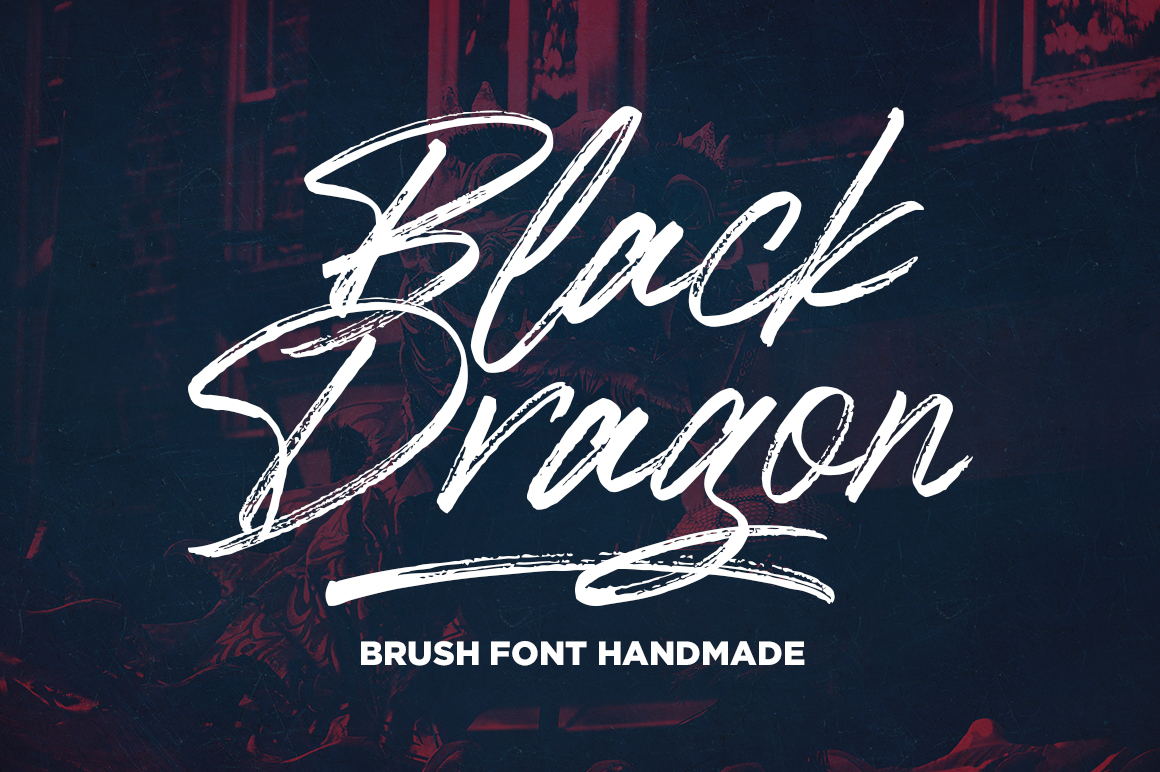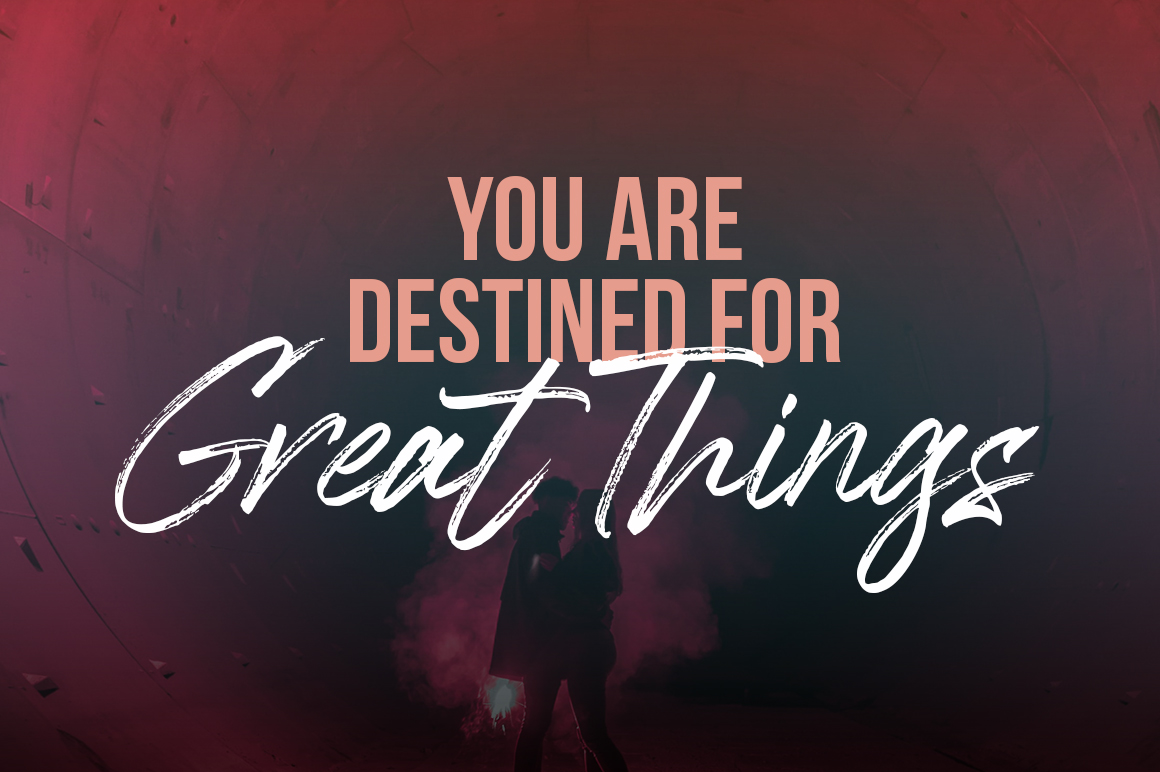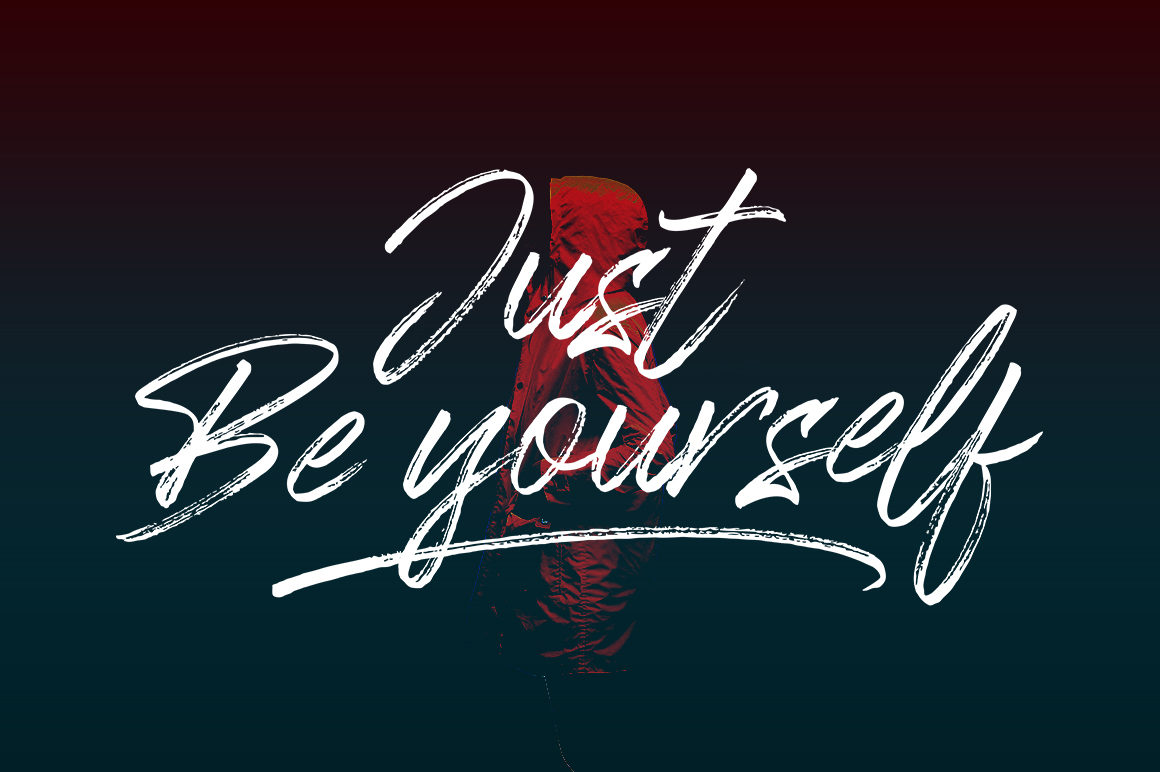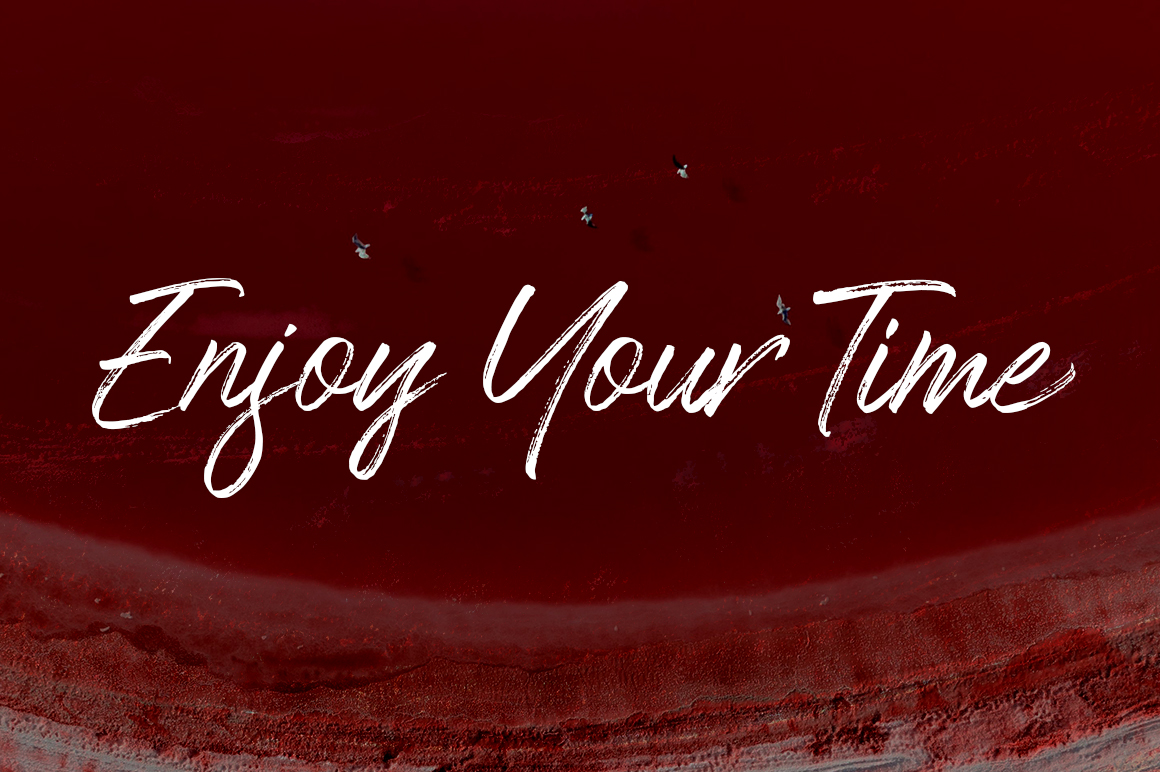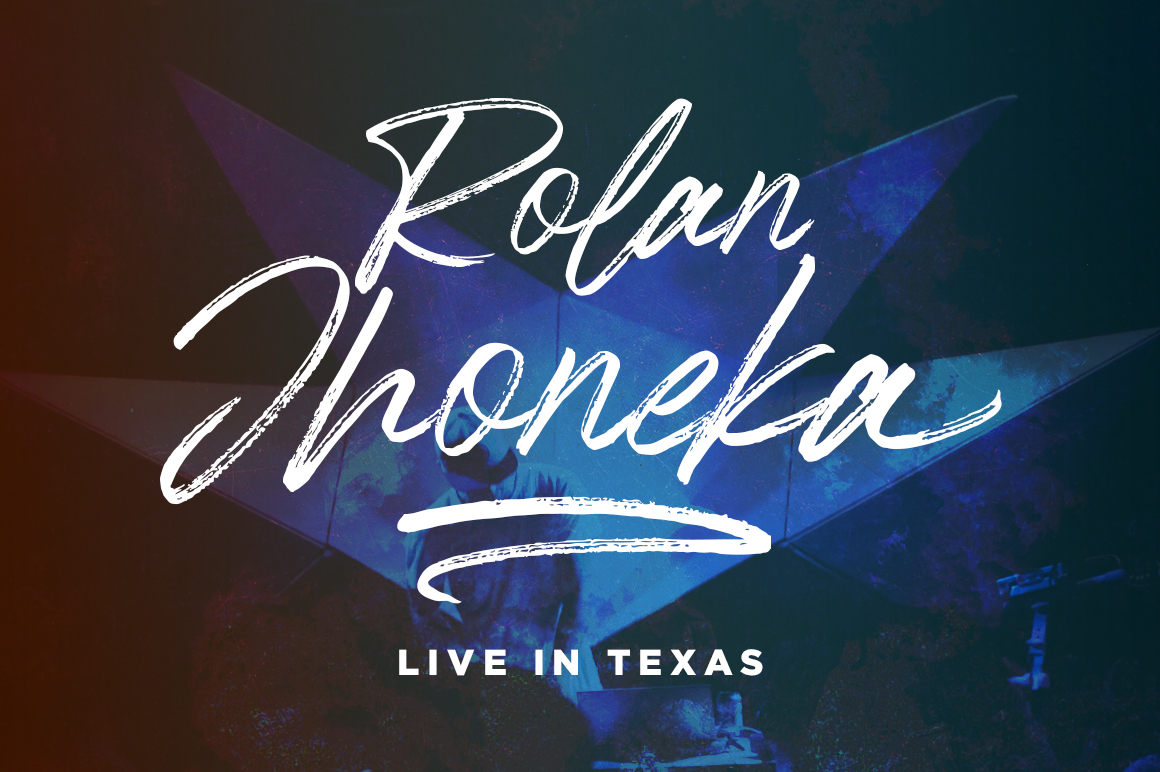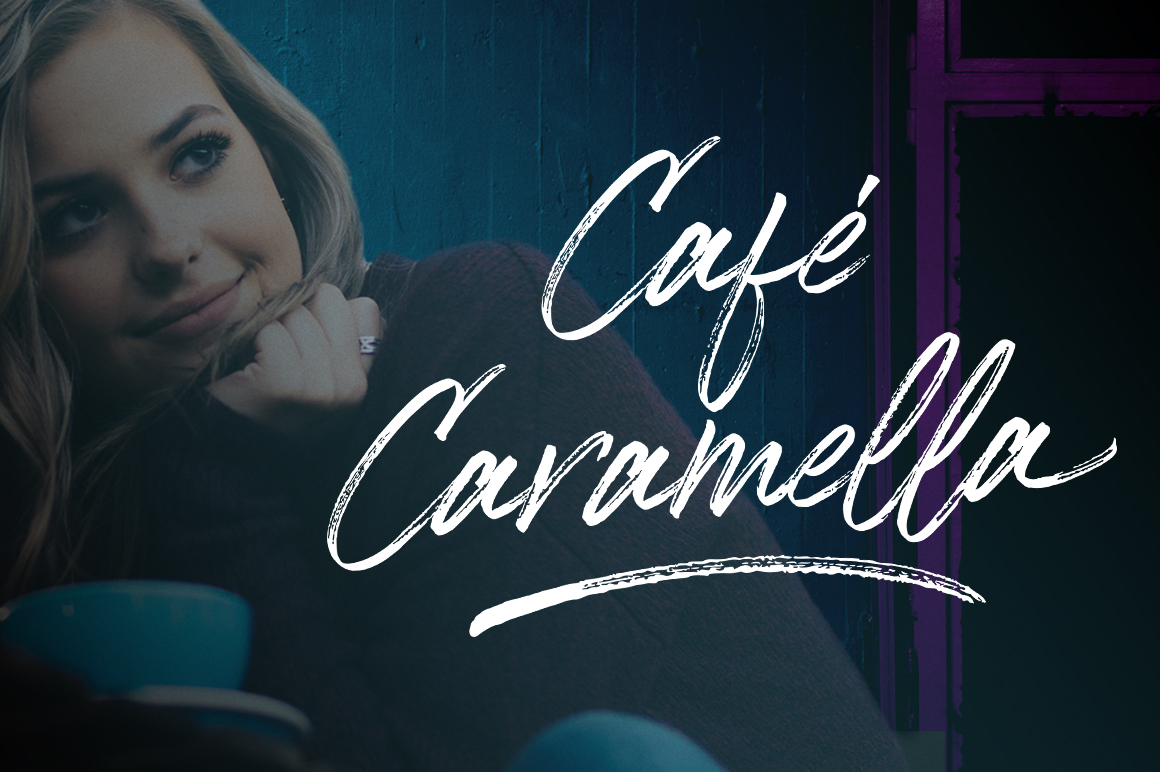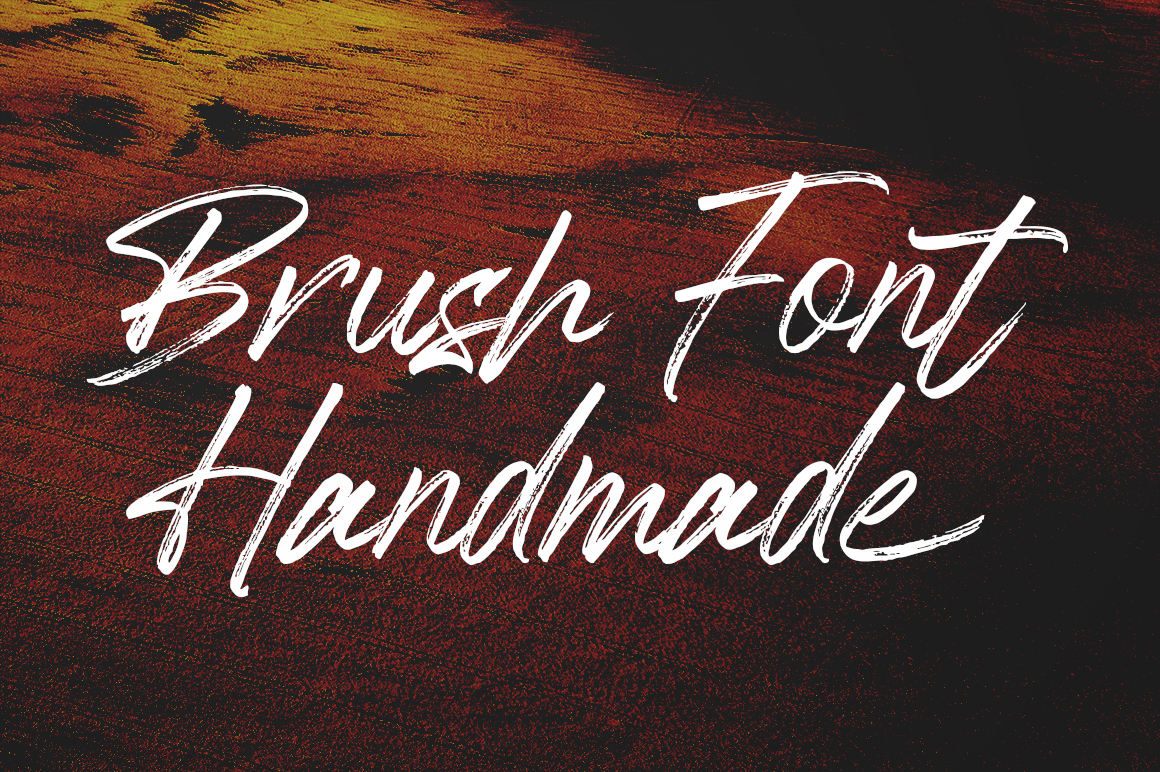
Black Dragon is a handmade brush font, naturally handmade and with underscores. Black Dragon is perfect for use in title designs such as clothing, invitations, title books, stationery designs, quotes, branding, logos, greeting cards, t-shirts, packaging designs, posters, and more.
Black Dragon includes a complete set of uppercase and lowercase letters, as well as multi-language support, numbers, punctuation, ligatures, alternatives and extra swash.